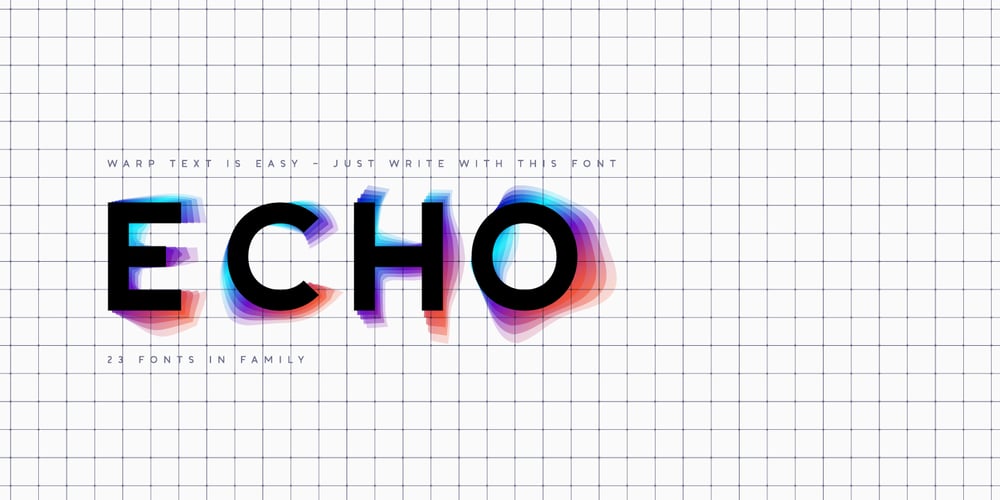
Echowarp Font Family was designed by Lauritta Ivanova and published by Luxfont. Echowarp contains 24 styles and family package options. Introducing Echowarp is an unusual COLORED font family. Main idea of this font is that a colored echo spreads and fades from minimalistic letters to the sides. Distorted letters give the effect of temporary refraction. The originality of this family is primarily suitable for a bold design.And if you add a random distortion in a graphics program to the finished heading written in this font, the inscription will turn into an absolutely unique and inimitable one. Futuristic set has 23 fonts in the family! Do not limit your imagination, because the font opens up a huge space for creative experiments.Check the quality before purchasing and try the FREE DEMO version of the font to make sure your software supports color fonts.Features: Free Demo font to check it works Letters with color echo & distortion 23 OTF SVG color fonts in the family Gradient and hologram fonts Kerning IMPORTANT:- OTF SVG fonts contain vector letters with gradients and transparency.- Multicolor OTF version of this font will show up only in apps that are compatible with color fonts, like Adobe Photoshop CC 2017.0.1 and above, Illustrator CC 2018. Learn more about color fonts & their support in third-party apps on www.colorfonts.wtf- Don’t worry about what you can’t see the preview of the font in the tab “Individual Styles” – all fonts are working and have passed technical inspection, but not displayed, they just because the website MyFonts is not yet able to show a preview of colored fonts. Then if you have software with support colored fonts – you can be sure that after installing fonts into the system you will be able to use them like every other classic font.Question/answer: How to install a font? The procedure for installing the font in the system has not changed. Install the font as you would install the classic OTF | TTF fonts. How can I change the font color to my color? Adobe Illustrator:Convert text to outline and easily change color to your taste as if you were repainting a simple vector shape. Adobe Photoshop: You can easily repaint text layer with Layer effects and color overlay. ld.luxfont@gmail.com